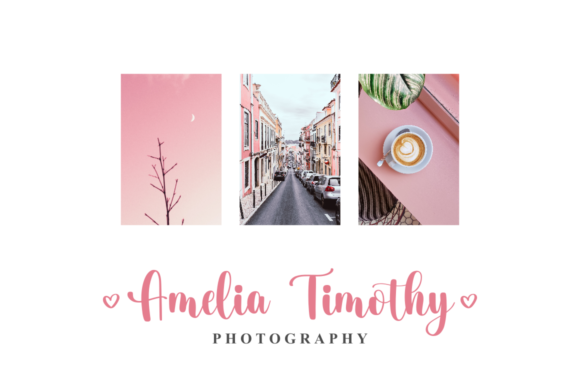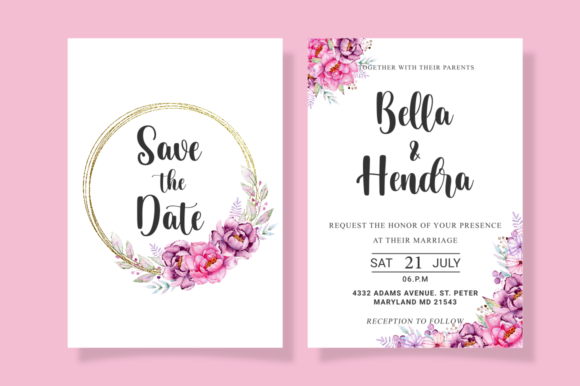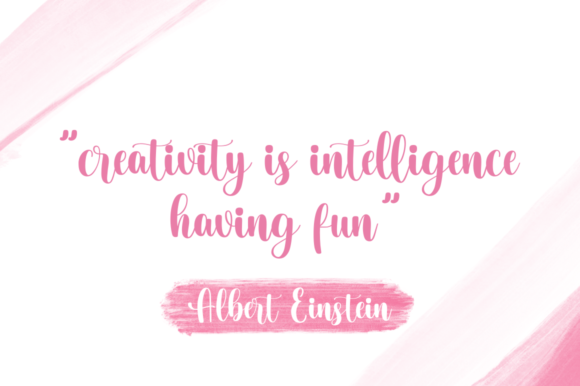
Introduction to Maglina Font
Have you ever stared at a blank page, trying to find the perfect words to express your creative vision? The blank slate can be intimidating, but the right design resource can make all the difference. For designers, the ideal font can be the spark that sets the creative project ablaze. This is where the Maglina Font comes in – a chic, refined script font that exudes sophistication and elegance.
With its stylish alternates and ligatures, Maglina Font is the perfect match for any project, from high-end branding to bespoke invitations. And the best part? This beautiful font is PUA encoded, allowing you to access all of the glyphs and swashes with ease, giving you complete control over your design. Whether you’re a seasoned pro or just starting out, Maglina Font is a valuable addition to your design arsenal.
Key Features of Maglina Font
- High-quality design for creative projects, offering a unique and elegant style.
- Maglina Font is suitable for a wide range of design applications, from print materials to digital media.
- Its modern and sophisticated design makes it an excellent choice for creative projects, such as branding, logos, and typography-based art.
Honest Review: Maglina Font
- ✨ High-quality design: The Maglina Font boasts a clean and modern aesthetic that’s perfect for creative projects.
- ✨ Versatile: The Maglina Font is suitable for a wide range of design applications, from digital displays to print materials.
While the Maglina Font is a solid choice for many designers, there are a few limitations to be aware of:
- ⚠️ Limited font sizes: The font may not be suitable for very large or very small font sizes, which could impact readability.
- ⚠️ Limited customization options: The font is a relatively simple design, which may limit its appeal for designers looking for more complex or customizable options.
Overall, the Maglina Font is a high-quality design resource that’s well worth adding to your collection. Its clean aesthetic and transparent background make it a versatile choice for a wide range of creative projects.
For optimal results, use Maglina Font in combination with other design elements that complement its high-quality design. Experiment with different font sizes, colors, and arrangements to create visually appealing designs. You can also use the font for creating logos, headings, and body text in your design projects.
Maglina Font is a versatile design resource that can be used in a variety of creative projects, including graphic design, digital art, and print design. It’s perfect for creating eye-catching headings, logos, and titles that grab attention. The font’s clean and elegant design makes it suitable for both personal and professional projects.